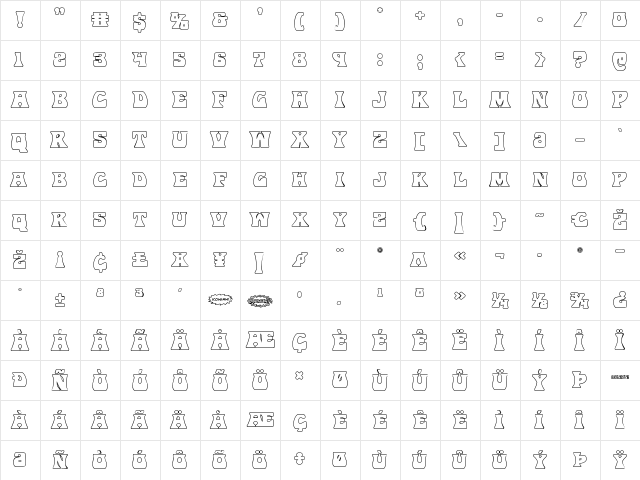
Hip Pocket Outline Regular
Design Context for Hip Pocket Outline Typeface
Hip Pocket Outline is built around its visual character rather than neutral utility — its distinctive forms are designed to make an impression at display sizes.
Font Pairing: Pair with a clean neutral sans-serif for body copy to let Hip Pocket Outline's character lead without overwhelming the composition.
Pro Tip: Treat Hip Pocket Outline as the centrepiece of your typographic hierarchy. One strong heading set in a decorative face can carry an entire layout.